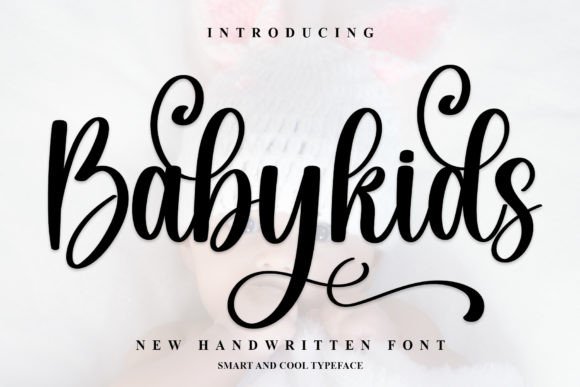
Step into the world of elegance and sophistication with Babykids Font, a captivating script typeface that exudes charm and grace. With its contemporary vibe and impeccable form, Babykids Font is a timeless classic, inspired by the art of calligraphy. Its balanced and varied design elevates your projects, adding a touch of sophistication and refinement.
Indulge in the beauty of Babykids Font, a creation of Inermedia STUDIO, and experience the magic of typography. This extraordinary font family is a true masterpiece, meticulously crafted to enhance the allure of your design resumes. Dive into a realm of limitless creativity, where your words dance with elegance and your ideas shine with brilliance.
Unleash the power of Babykids Font and unlock a world of possibilities. Its graceful strokes and sweeping lines captivate the eye, adding a touch of enchantment to your designs. Whether you're crafting a captivating resume, designing an enchanting invitation, or creating a heartfelt greeting card, Babykids Font transforms your words into an exquisite visual symphony.
Immerse yourself in the versatility of Babykids Font, a font family that adapts seamlessly to a myriad of projects. Let your imagination soar as you explore the endless possibilities, from sleek and modern designs to whimsical and playful creations. Babykids Font effortlessly complements your vision, enhancing your projects with a touch of timeless elegance.
Embrace the allure of Babykids Font and elevate your designs to new heights. Its refined charm and captivating beauty will leave a lasting impression on your audience. Experience the joy of effortless creativity as your words take on a life of their own, flowing harmoniously across the page, captivating the attention of all who behold them.